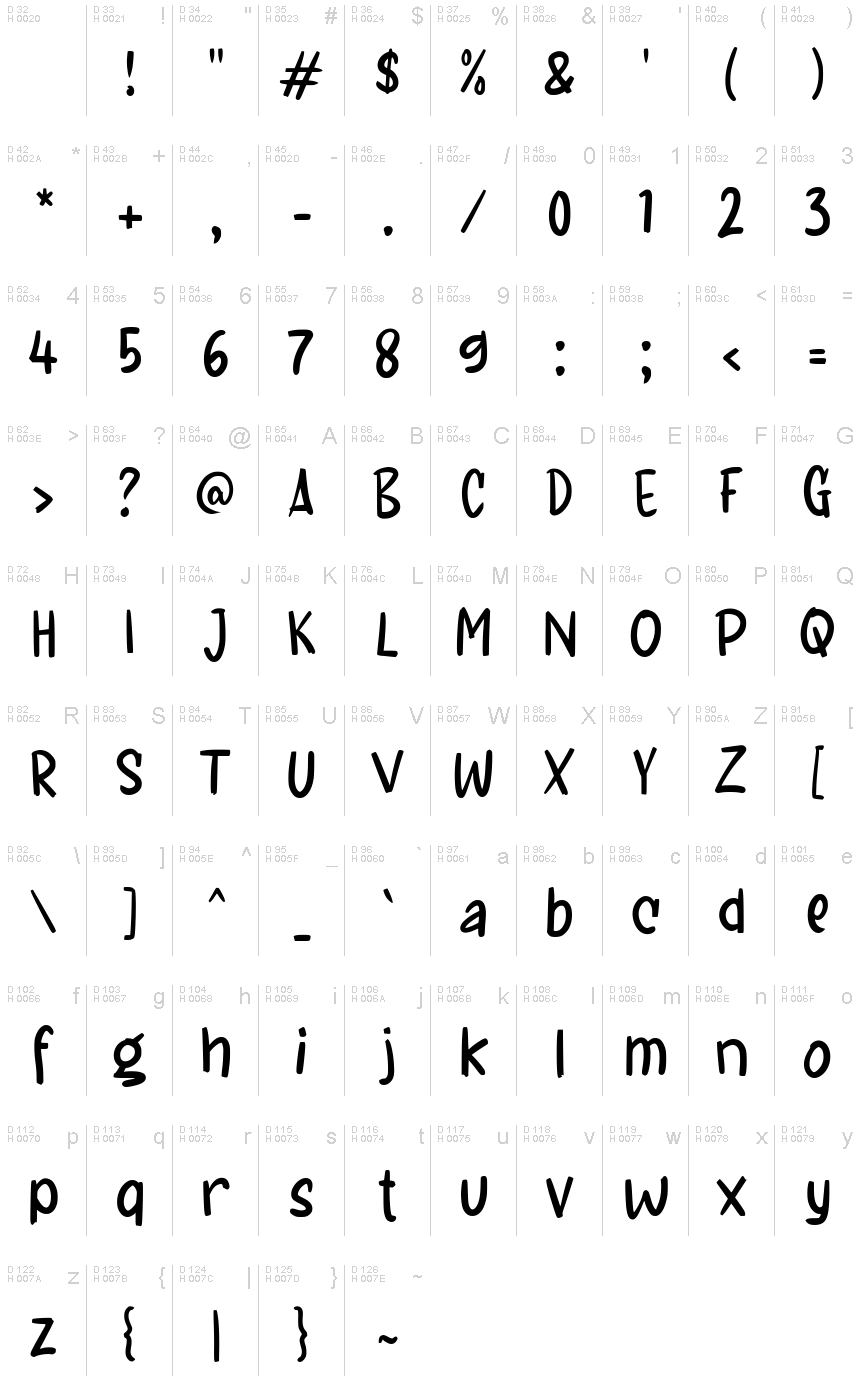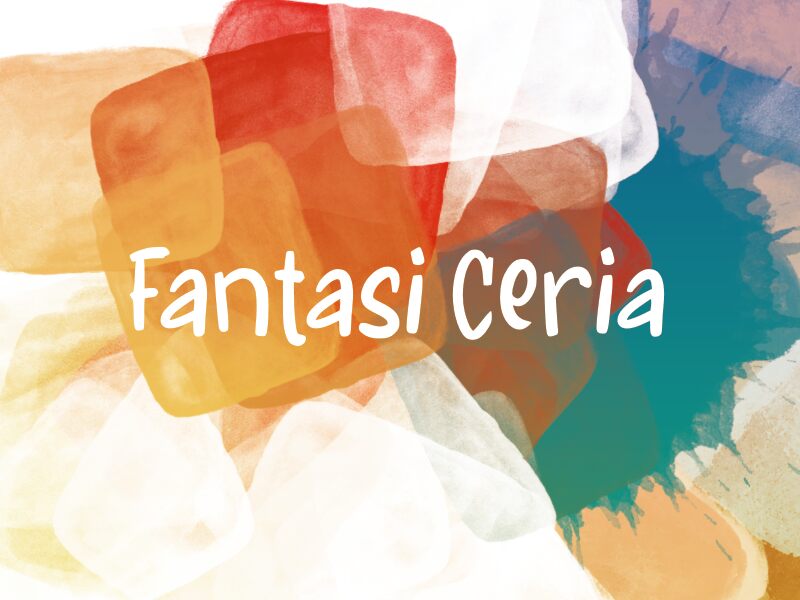
Fantasi Ceria
Fantasi Ceria is a whimsical, handwritten font that exudes a playful and spirited energy. The flowing, expressive strokes create a sense of dynamism and movement, drawing the eye effortlessly across the text. This font's distinctive character is enhanced by its unique letter shapes, which blend graceful curves with bold, angular flourishes. The overall impression is one of joyful spontaneity, making Fantasi Ceria an ideal choice for designs that seek to convey a sense of fun, creativity, and youthful exuberance.
Whether in headlines, titles, or decorative accents, this font's expressive potential shines through, adding a touch of personality and charm to any project. From children's storybooks and party invitations to branding for lifestyle and fashion brands, Fantasi Ceria's versatility allows it to seamlessly integrate into a wide range of design contexts, bringing a delightful and distinctive flair to every application.